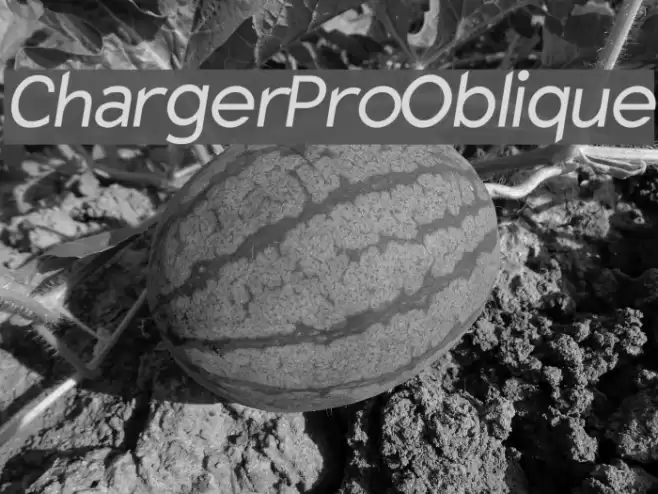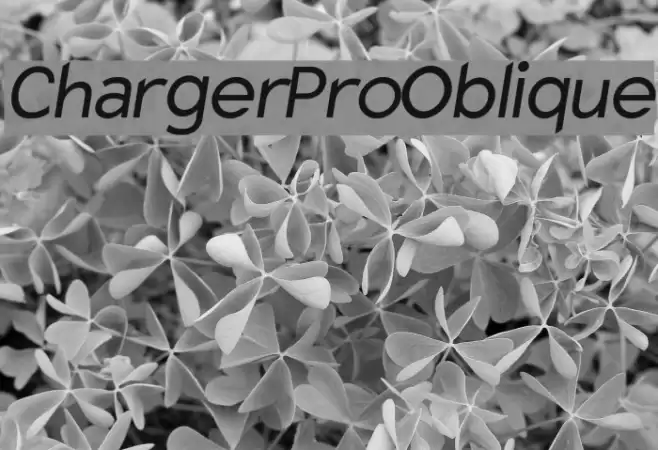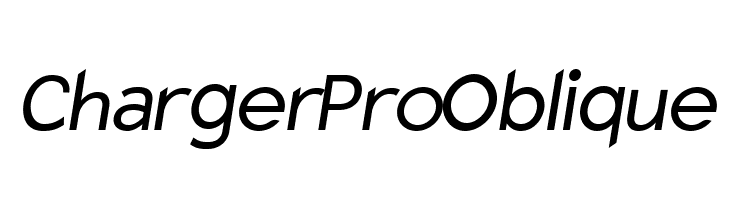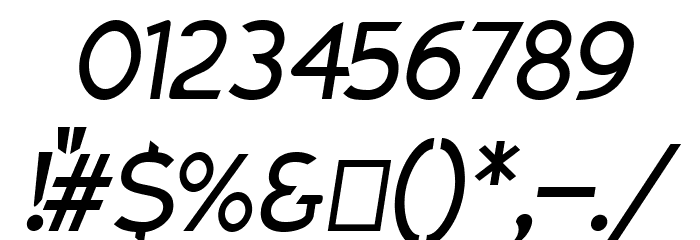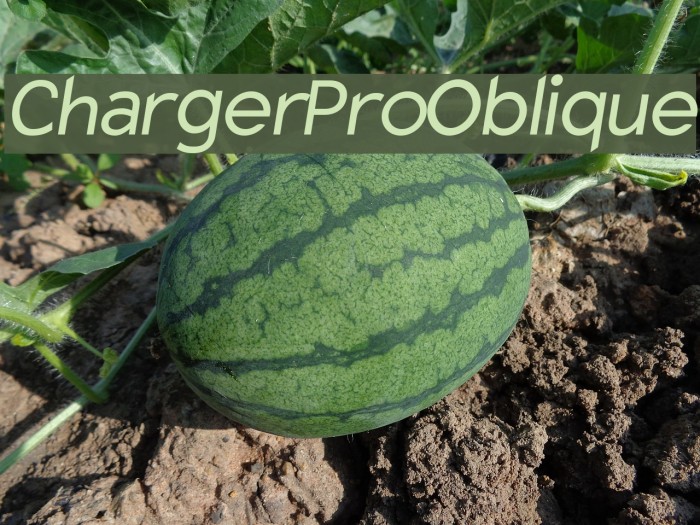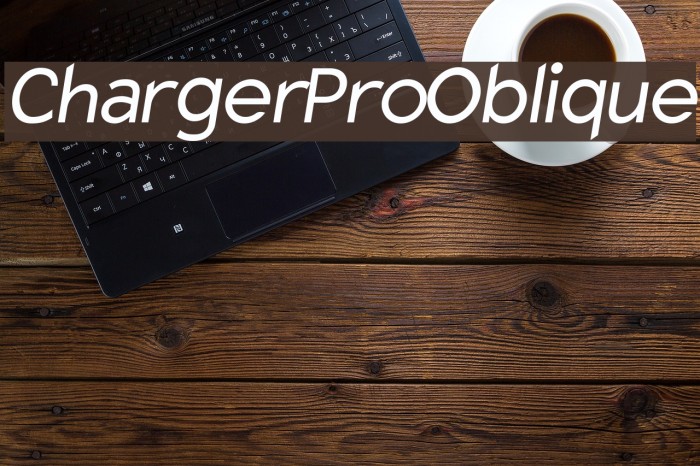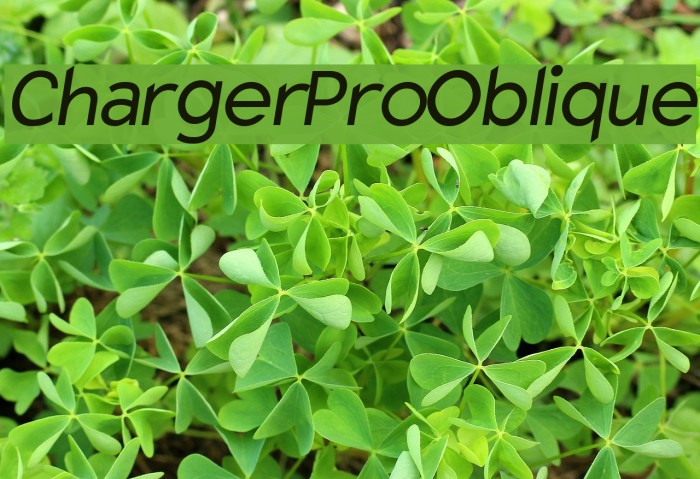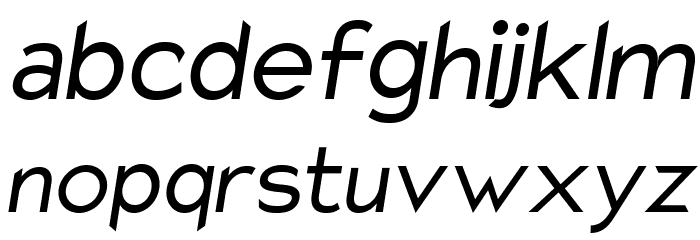
Charger Pro Oblique Font
Charger Pro Oblique Description
This font features a sleek, modern design with an oblique style that gives it a dynamic and forward-leaning appearance. The characters are clean and sans-serif, providing a contemporary look suitable for various digital and print applications. The strokes are consistent in thickness, offering a medium contrast that enhances readability while maintaining a stylish edge. The font's overall aesthetic is both professional and approachable, making it versatile for multiple uses. Its character set includes uppercase and lowercase letters, numbers, and a range of special characters, ensuring comprehensive coverage for diverse typographic needs.
A modern, oblique sans-serif font with medium contrast and dynamic style from Uncategorized fonts.
- Proposed Projects: Ideal for branding, advertising, digital interfaces, and editorial design.